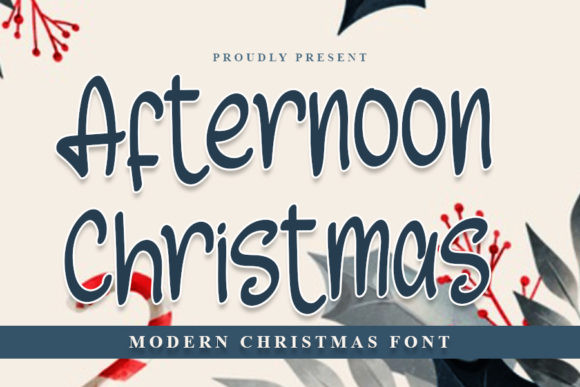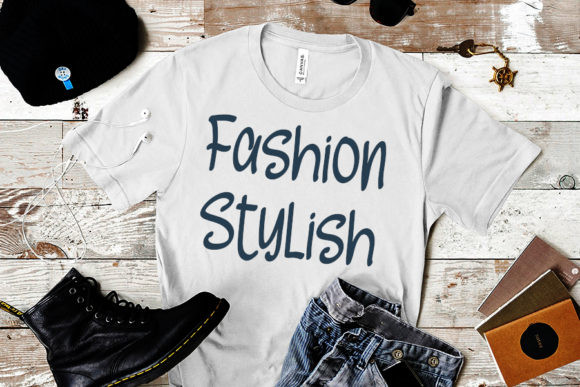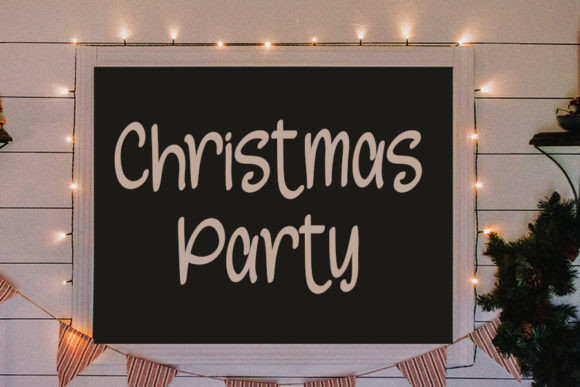
Afternoon Christmas Font
Afternoon Christmas is a modern handwritten font. This font is suitable for a wide variety of projects such as making flyers, mockups, logos, banners and more!